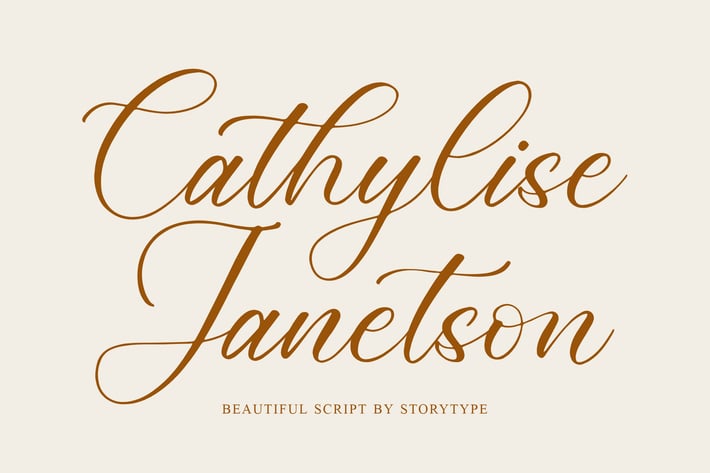
Cathylise Janetson Script Font
Cathylise Janetson is an elegant and timeless script font designed to bring sophistication and warmth to your creative work. With its refined letterforms, smooth curves, and classic flow, this font beautifully balances traditional calligraphy with a modern aesthetic — perfect for creating designs that feel both luxurious and personal.
Graceful handwritten script with high contrast strokes
Elegant and flowing ligatures for natural handwriting feel
Multilingual support for global usability
Crisp readability for both print and web projects
Balanced modern–classic character design
Wedding invitations and event stationery
Personal branding and signature logos
Editorial layouts and lifestyle content
Product packaging and boutique design
Elegant social media templates
Refined, timeless, and beautifully flowing — Cathylise Janetson* captures the art of handwriting with elegance and grace.